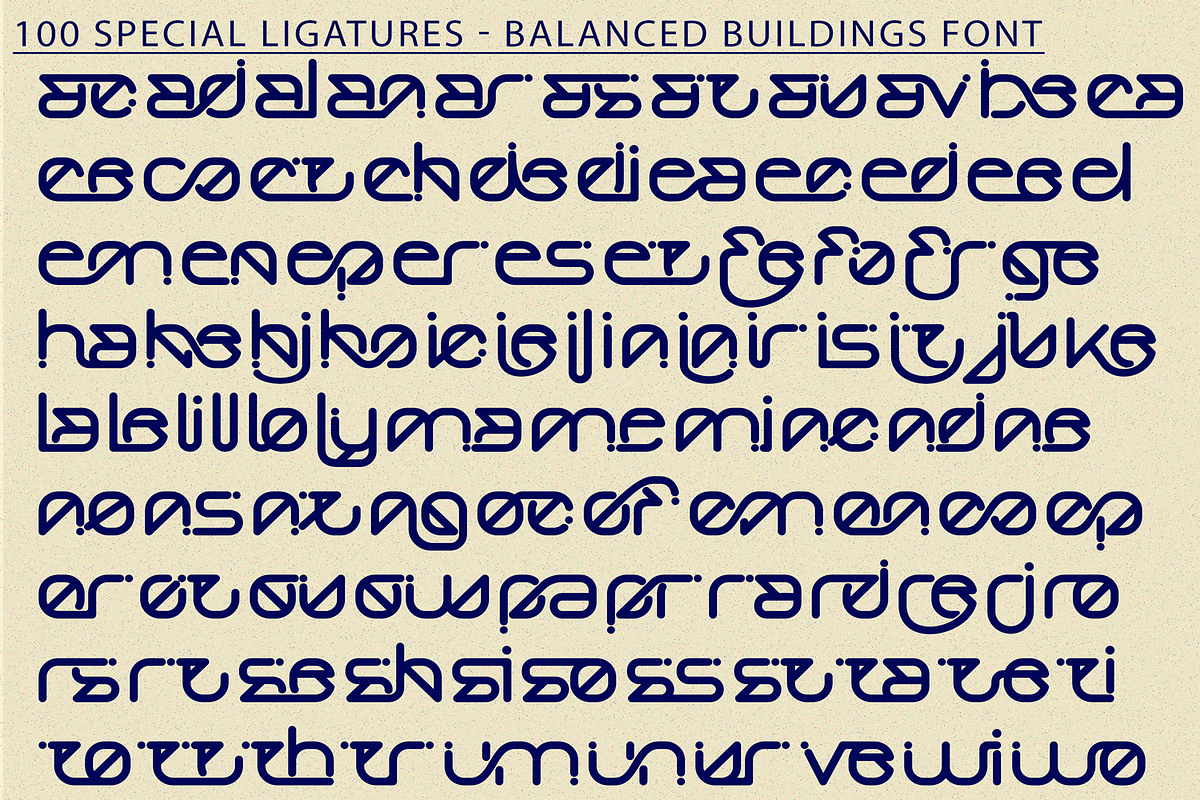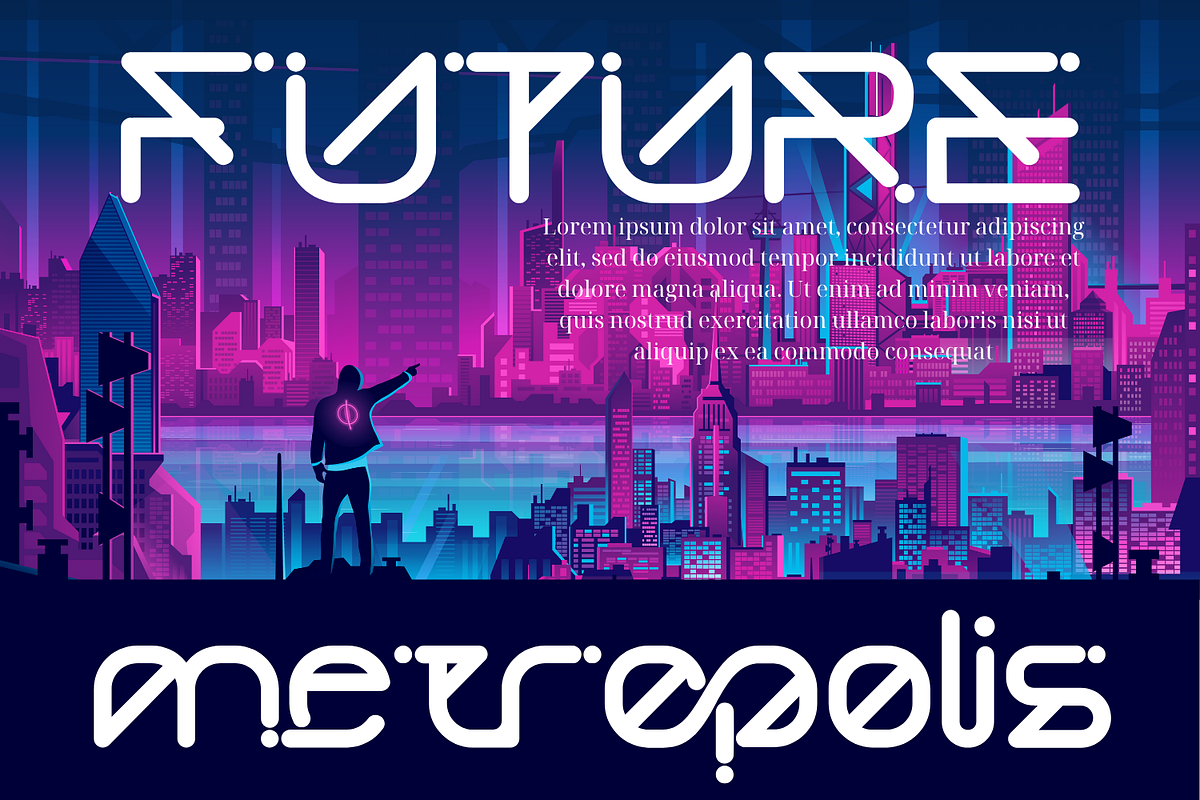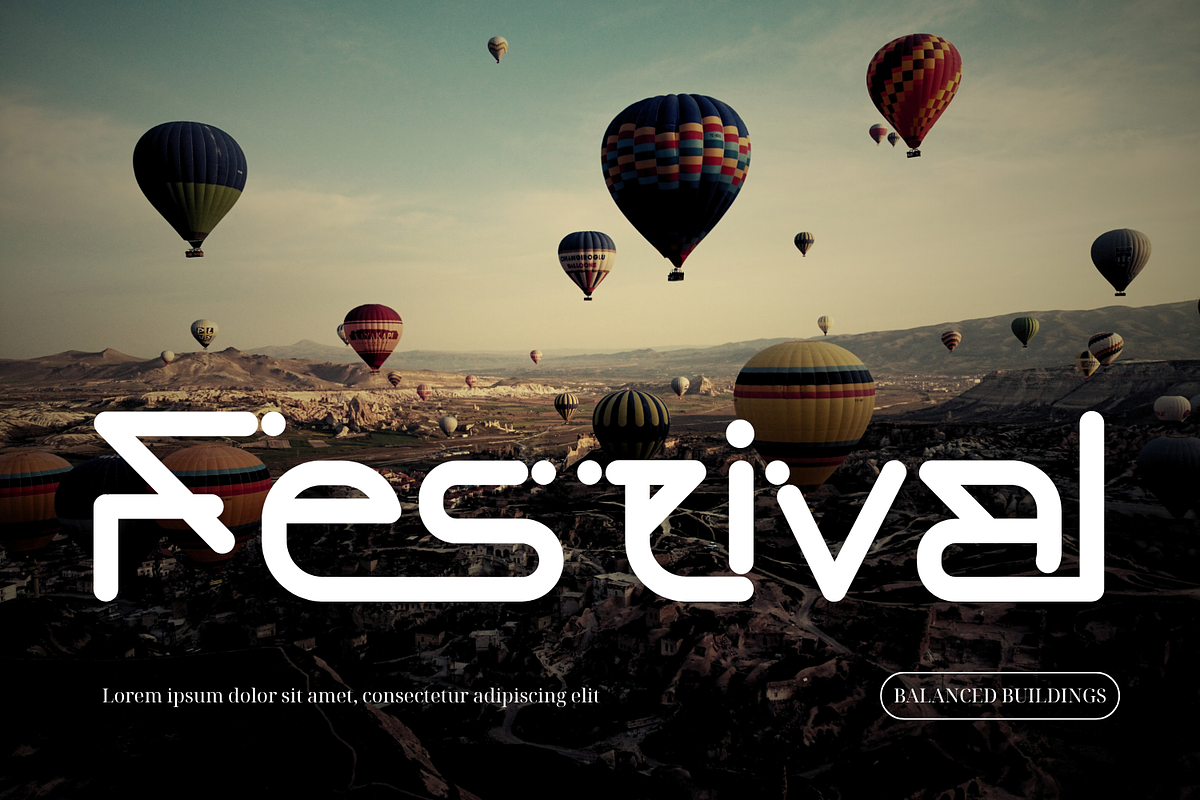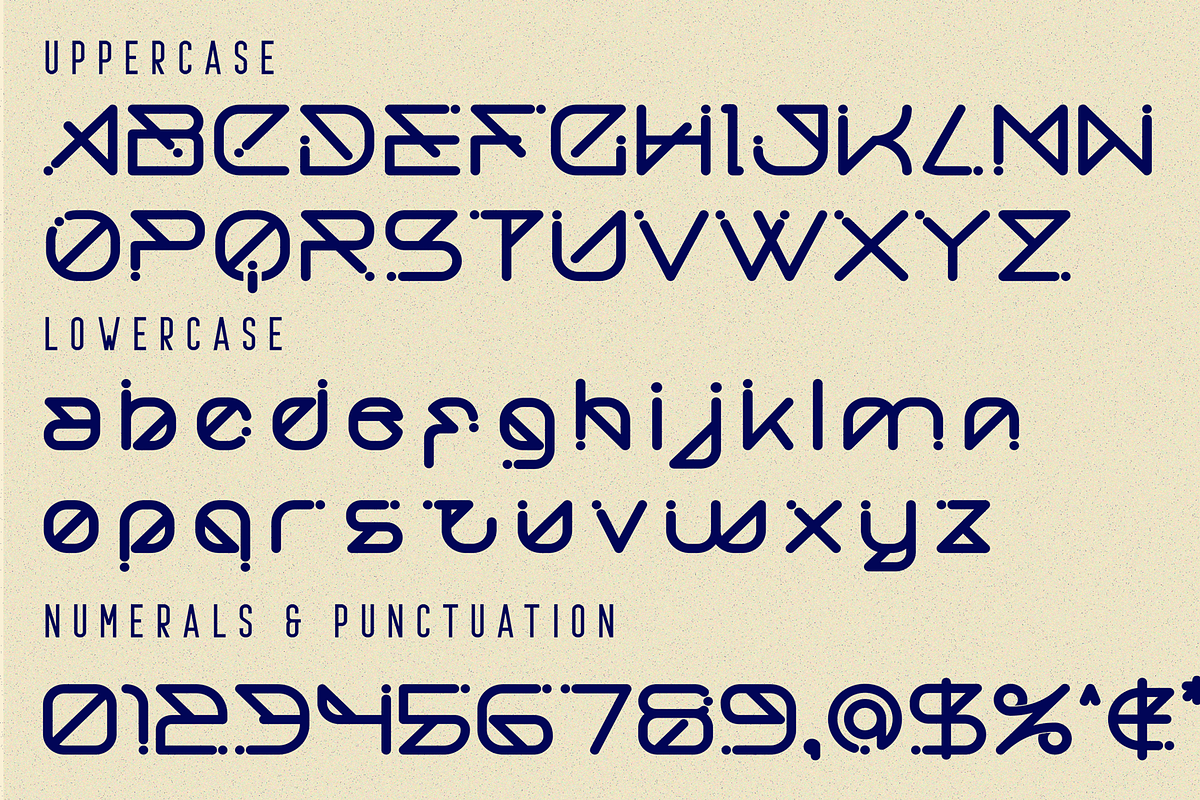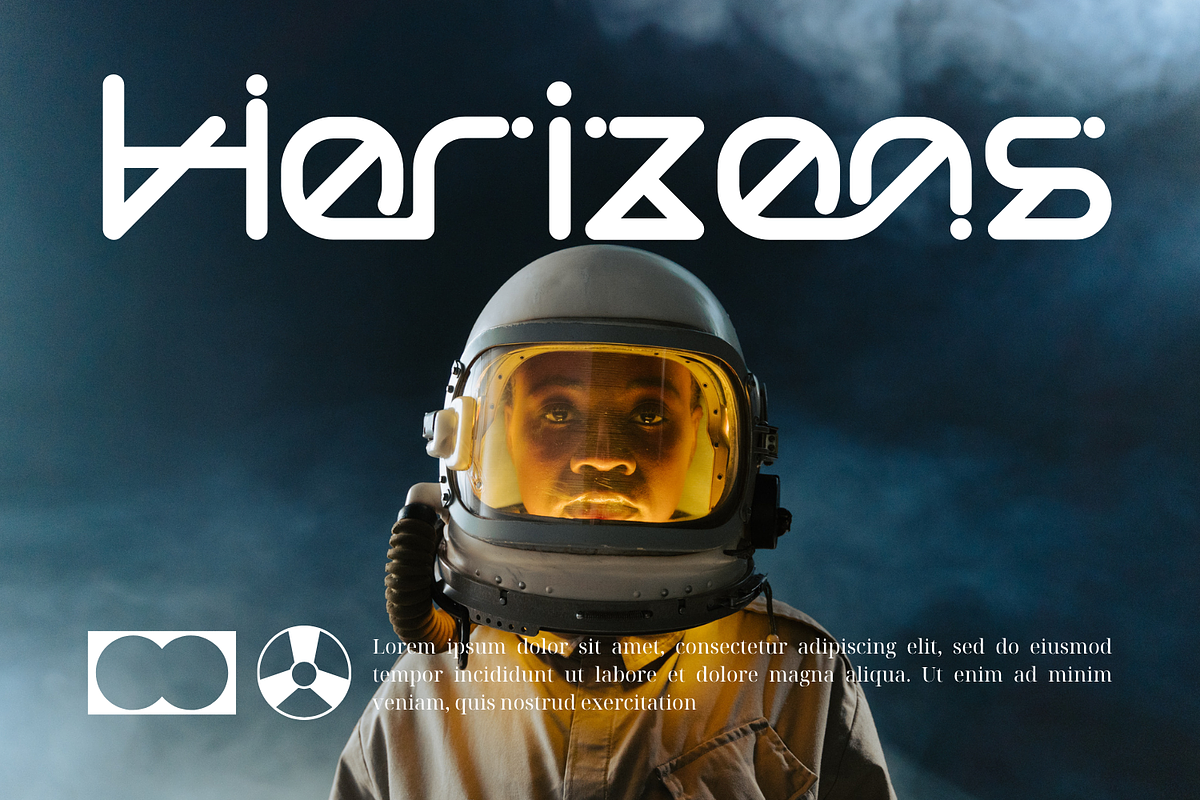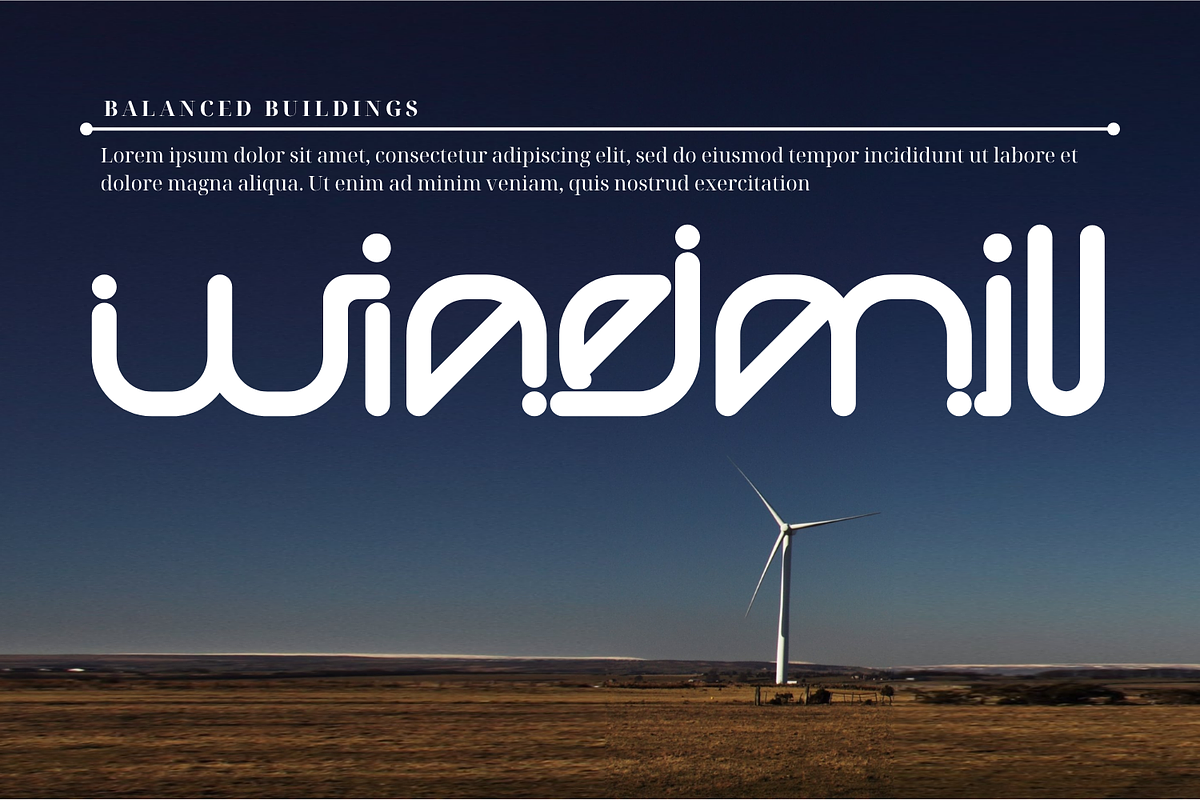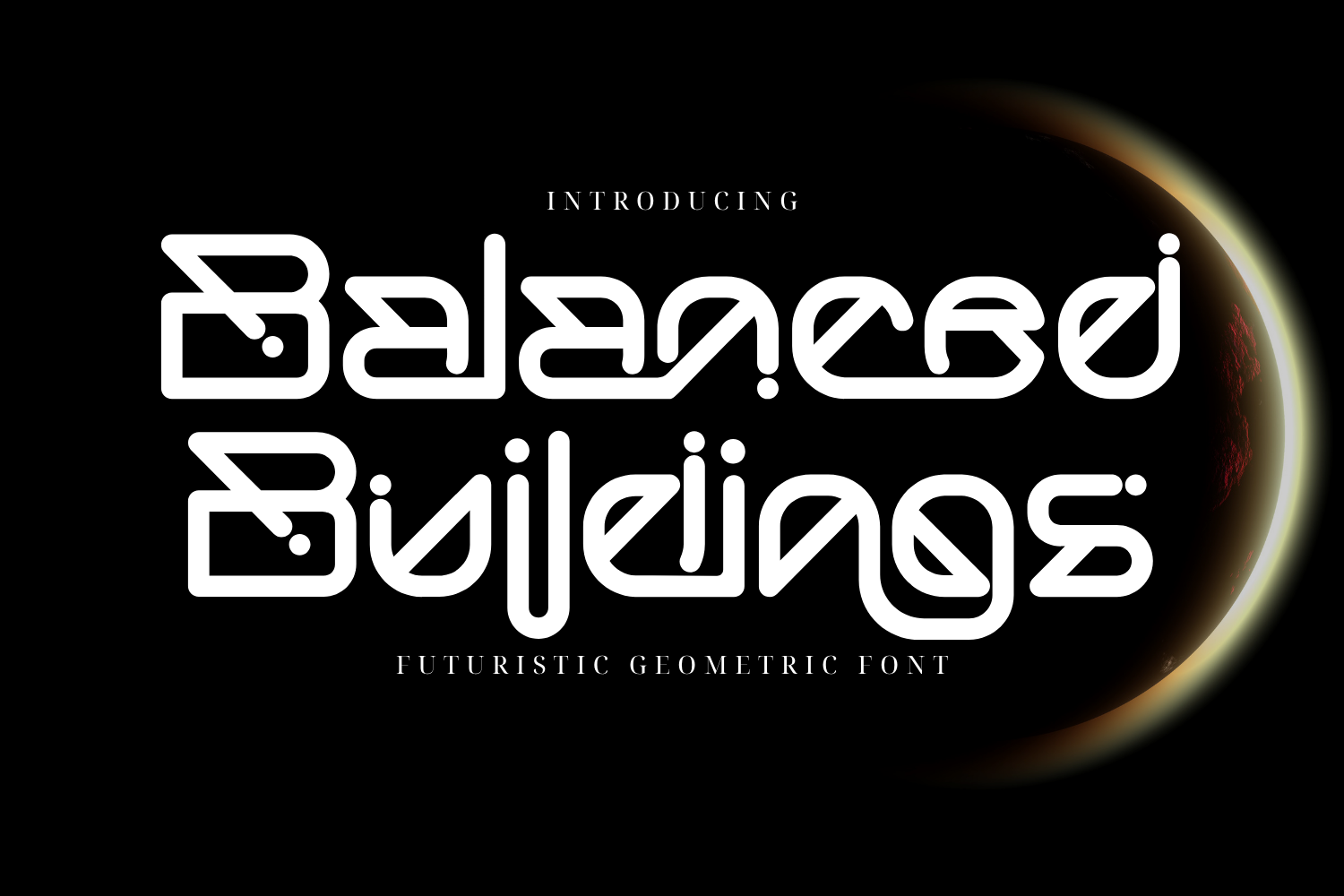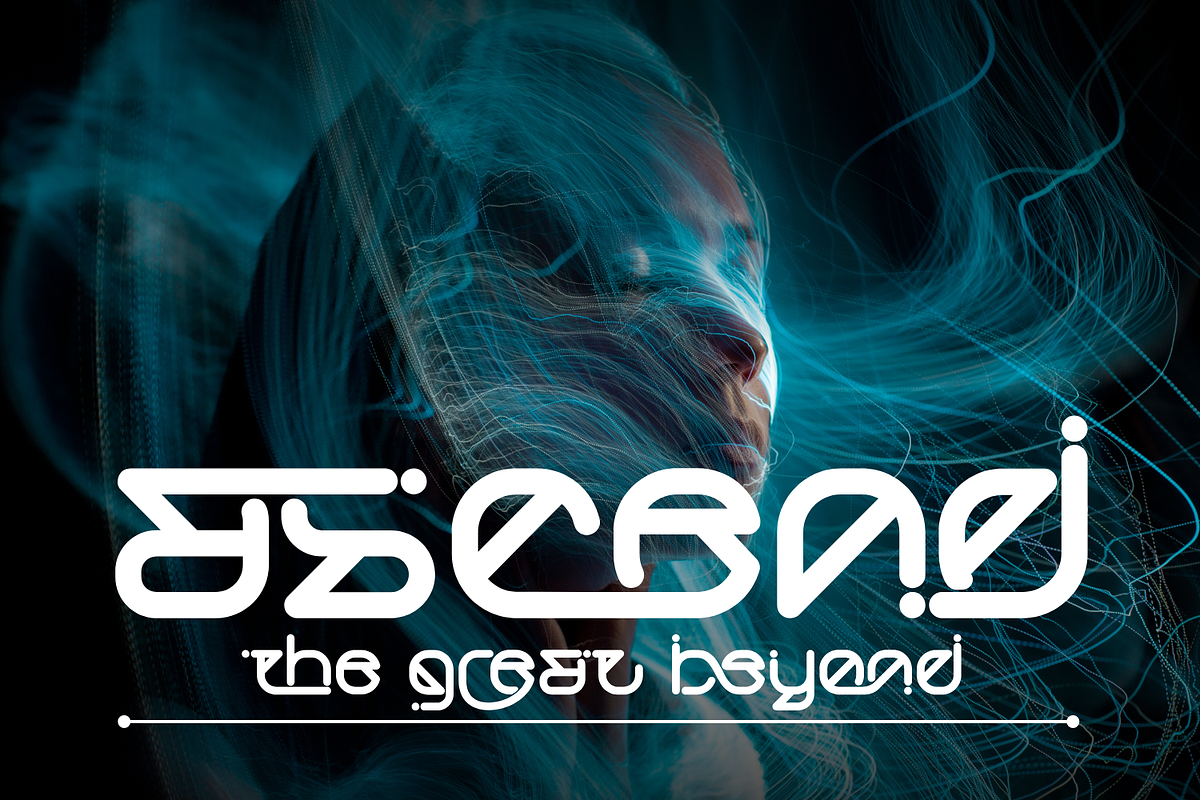
Balanced Buildings - Futuristic Font
Balanced Buildings - Futuristic Font is a futuristic modular display font inspired by digital architecture, circuit schematics, and cybernetic flow. Its smooth, rounded terminals and continuous line structure create a fluid, machine-like aesthetic — perfectly suited for visionary designs in science fiction, tech branding, or electronic music visuals.
The font evokes a world where geometry and motion coexist, bringing harmony between man-made structures and digital life. Balanced Buildings feels right at home in both bold headlines and abstract compositions where form equals function.
- Uppercase & Lowercase Letters
- Around 100 Custom Ligatures
- Accented Characters
- Techno-futuristic modular curves
- Optimized for display use in posters, UI titles, and sci-fi branding
About 100 ligatures combined with Stylistic Alternates Font:
ac ad al an ar as at au av be ca ce ch co ct de di ea ec ed ee el em en ep er es et fe fo fr ge ha he hi ho ie ic il in io ir is it ju ke la le li ll lo ly ma me mi nc nd ne ng no nt ns oc of om on oo op or ot ou ow pa pr ra rd re ri ro rs rt se sh si so ss st ta te th ti to tr tt um un ur ve wi wo